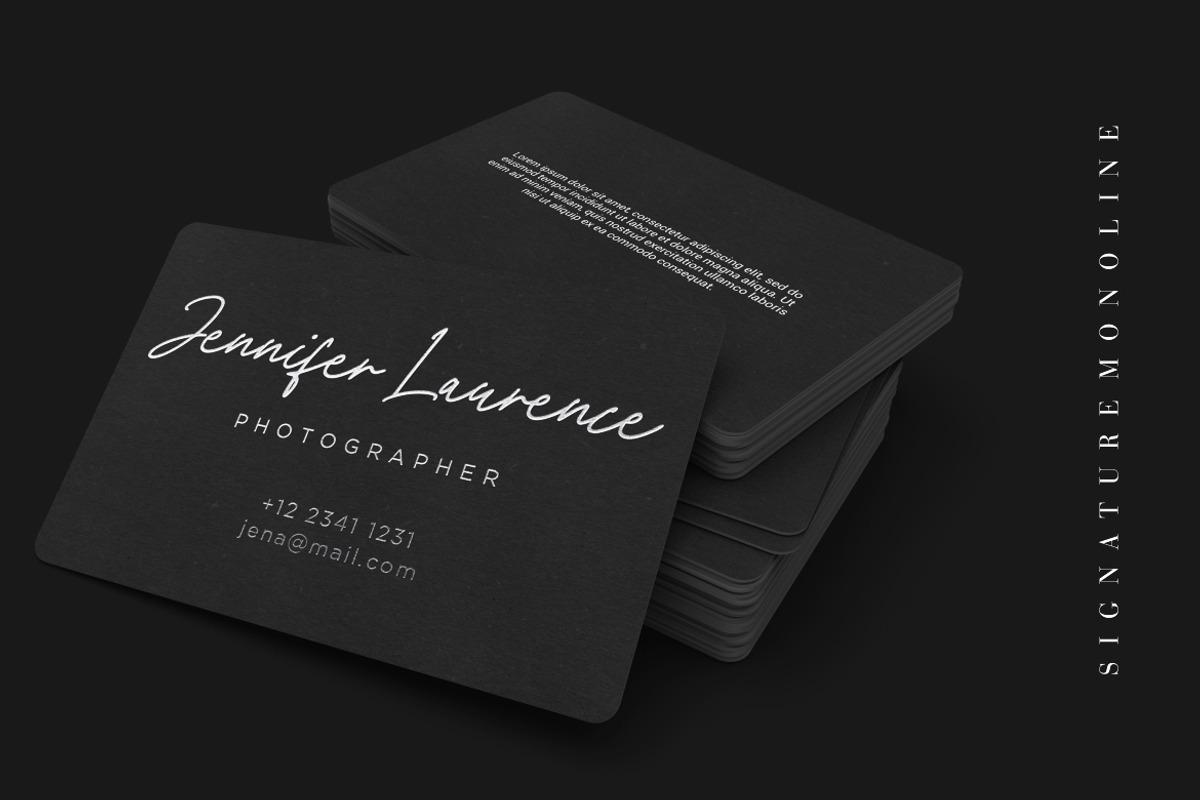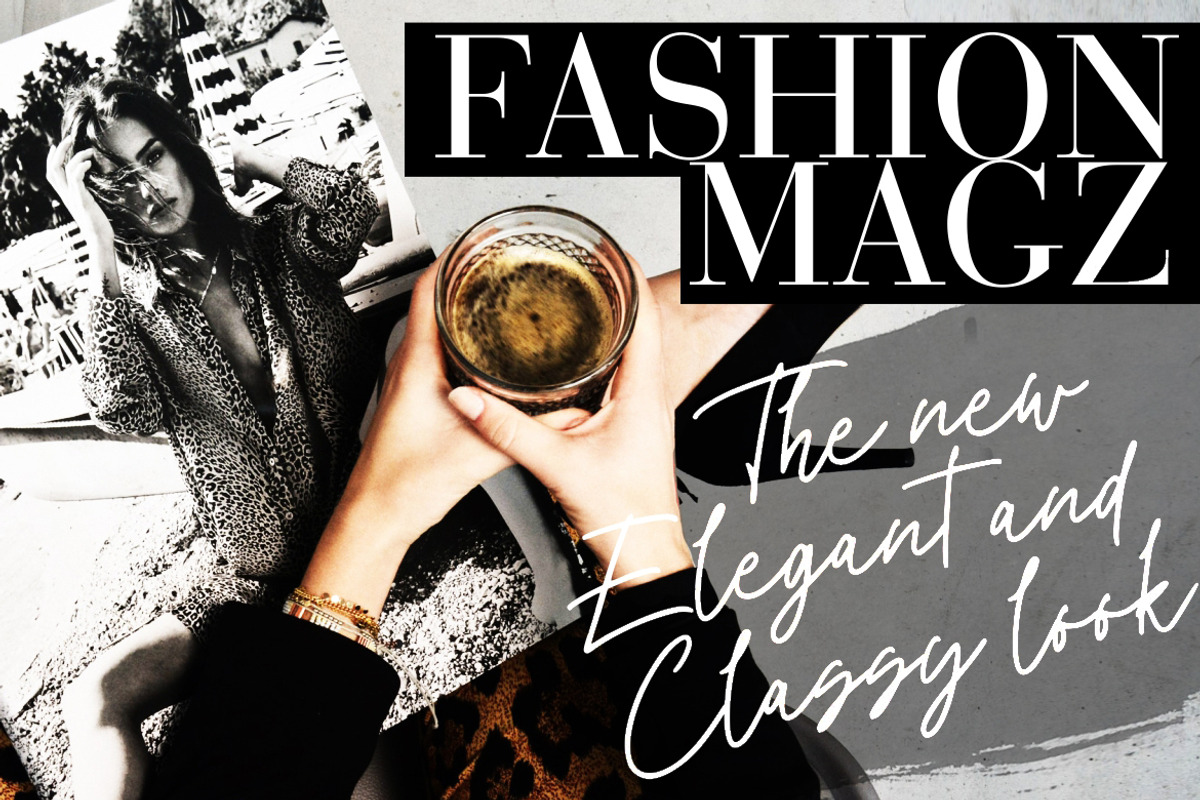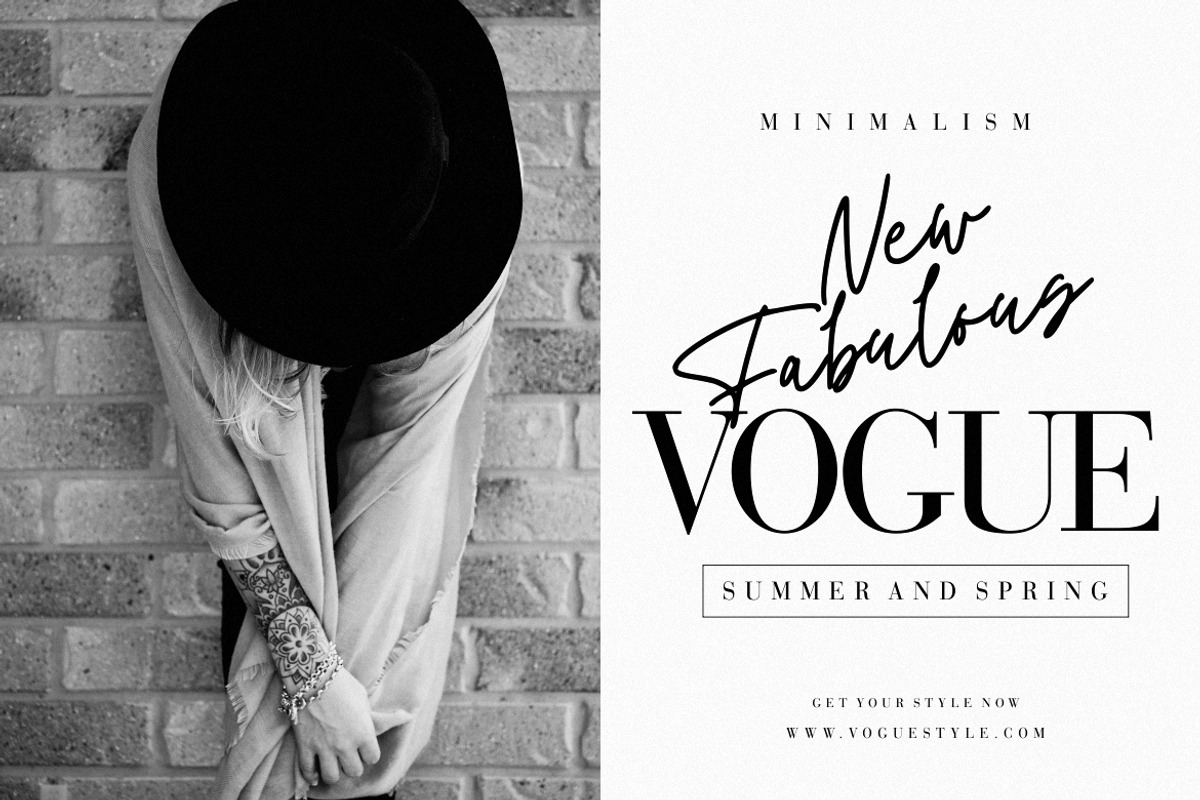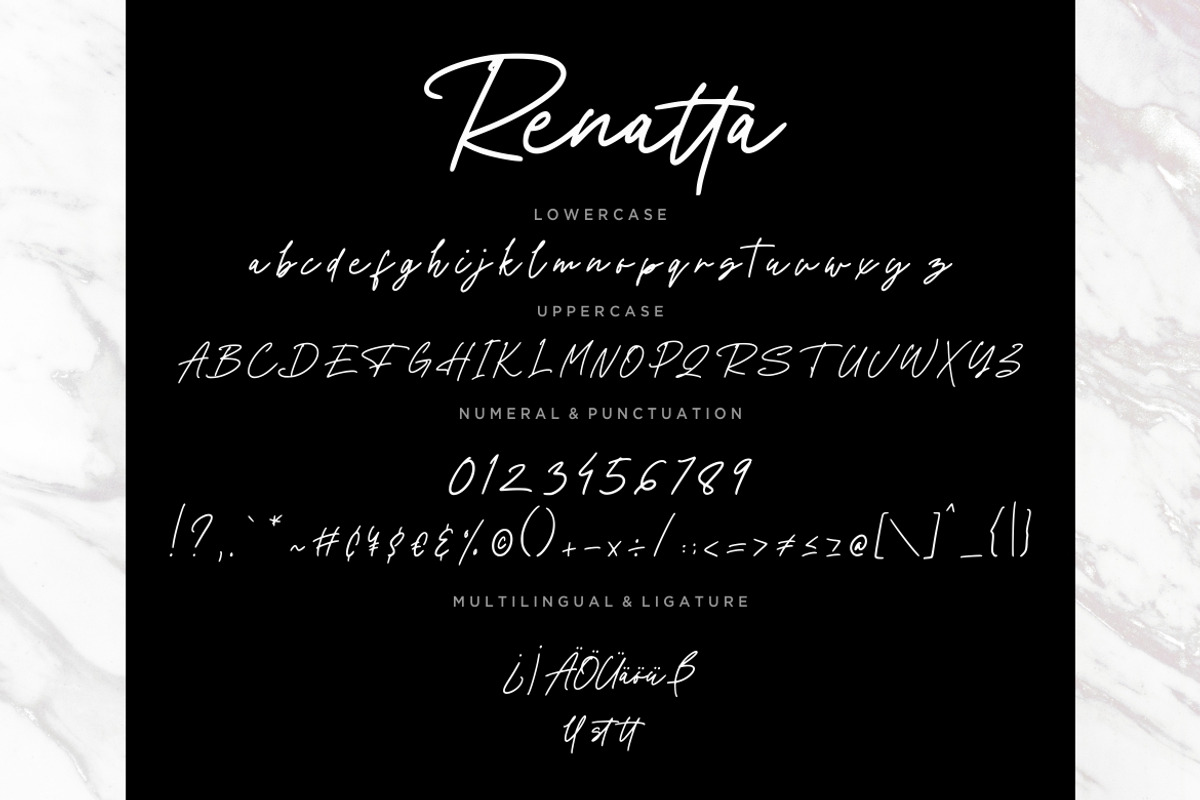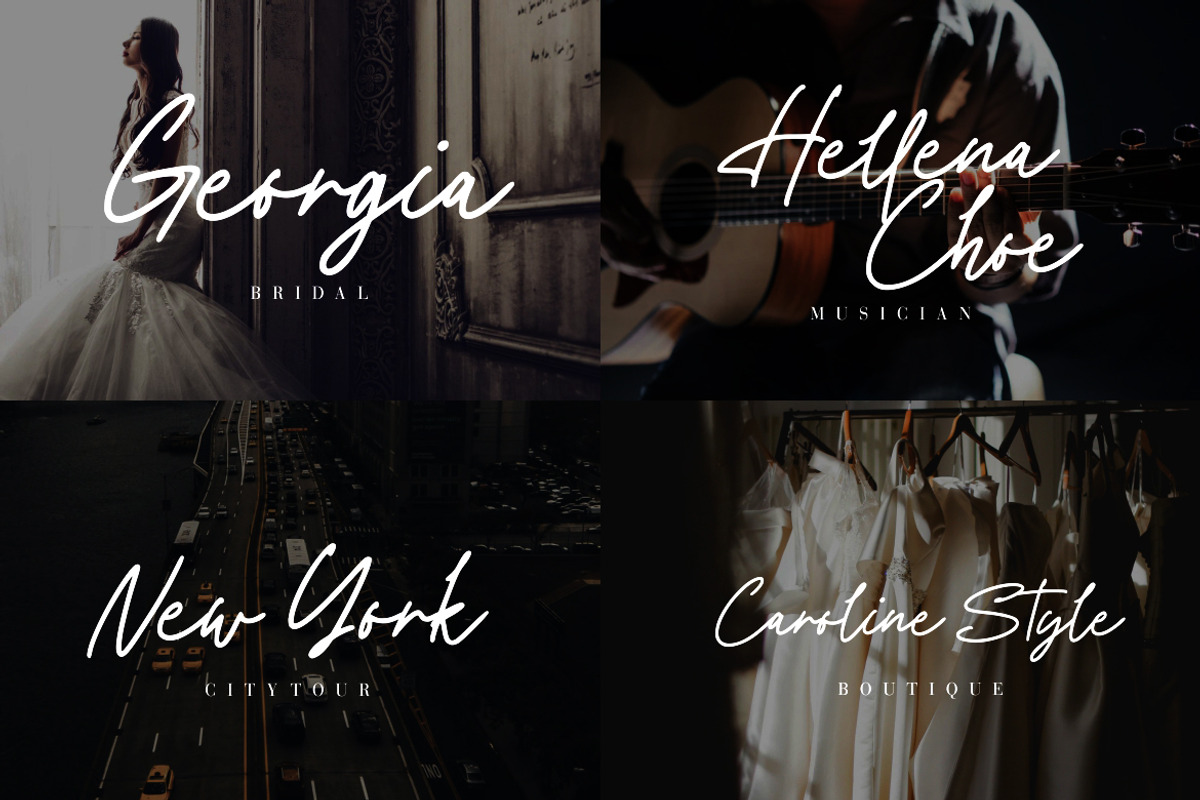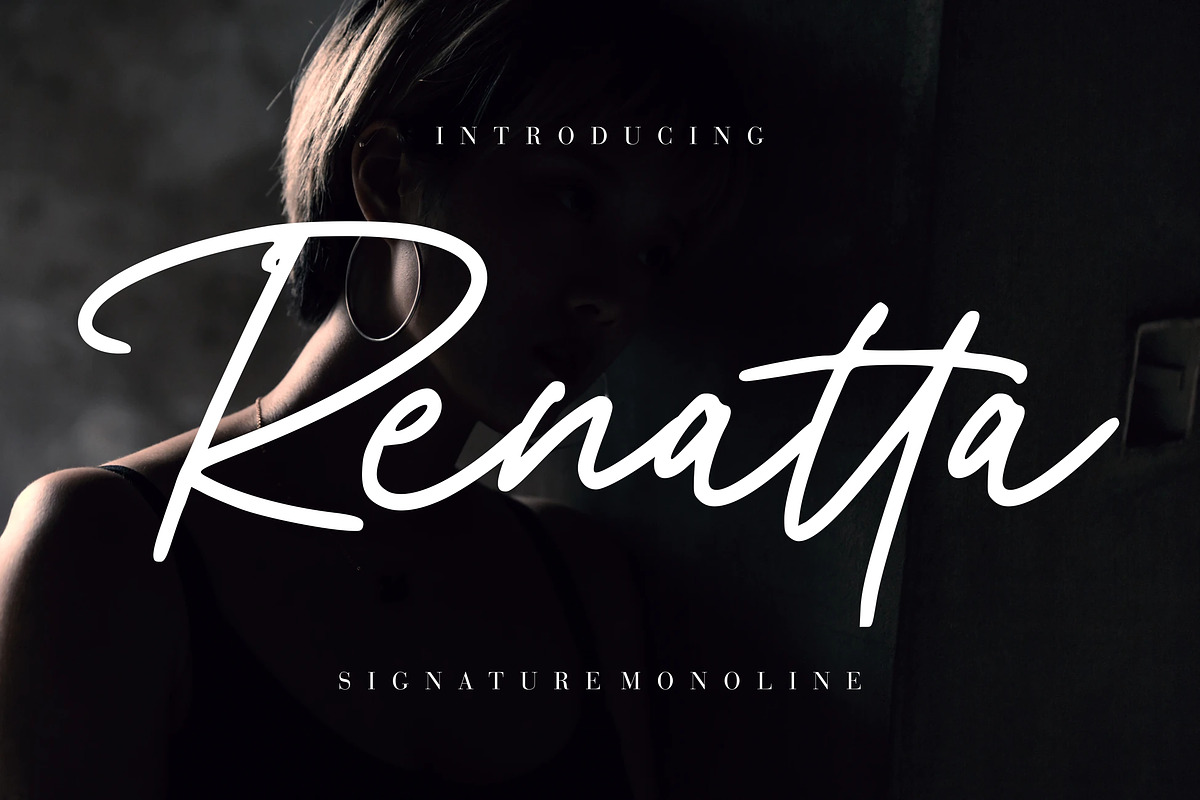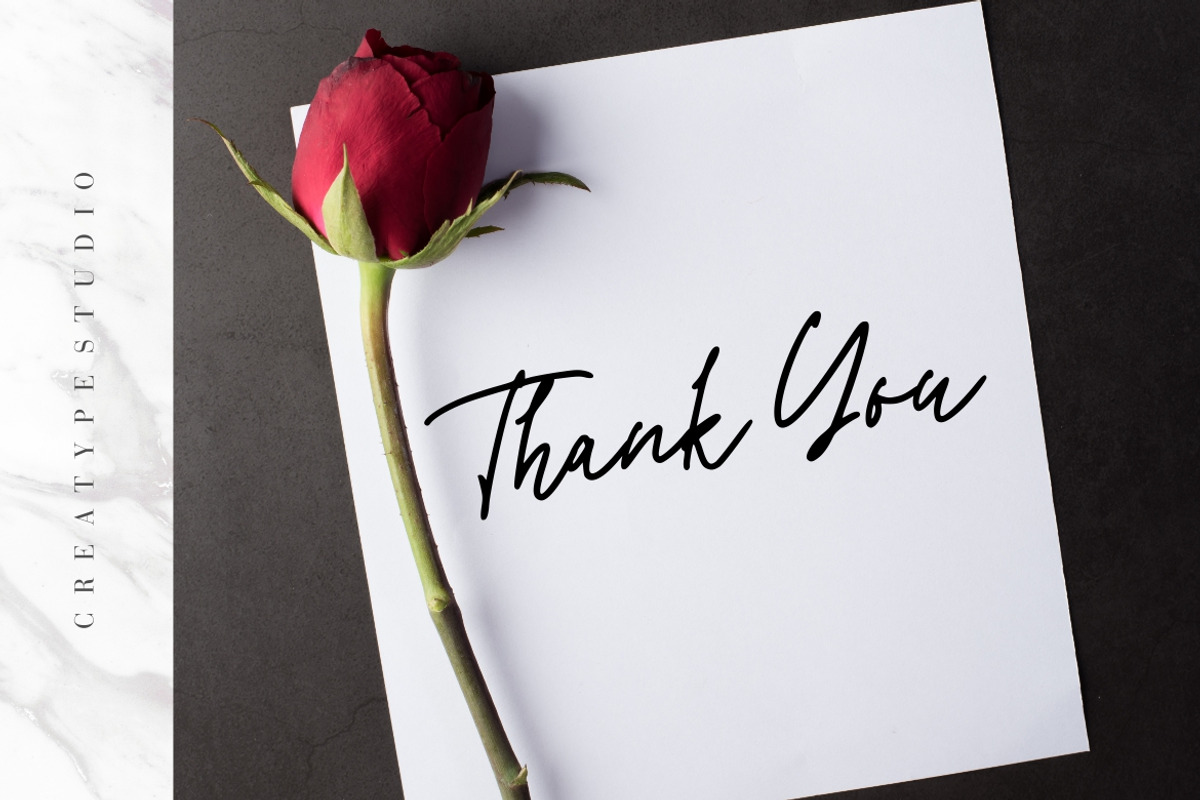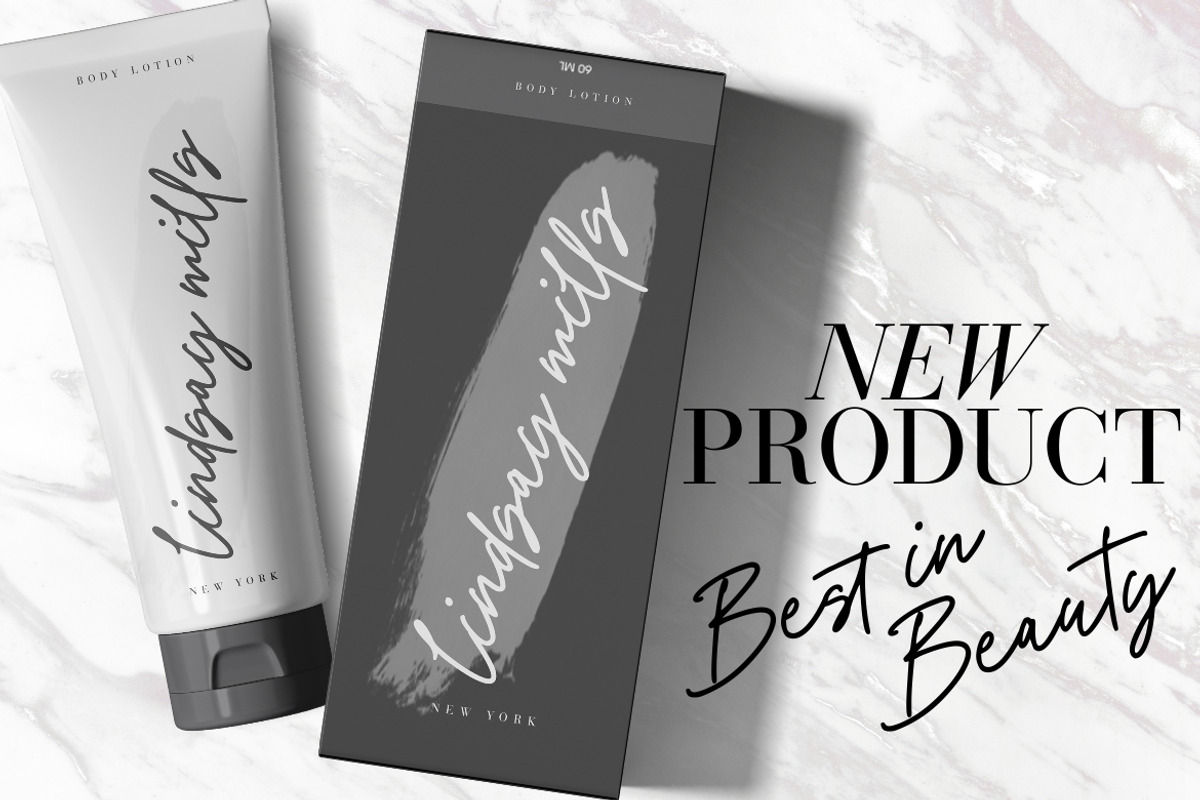
Renatta Business Font
Renatta is signature monoline font with sophisticated and stylish handwritten.
Renatta is perfect for branding projects, logo, wedding designs, social media posts, advertisements, product packaging, product designs, label, photography, watermark, invitation, stationery and any projects that need handwriting taste.
- Fonts include multilingual support for; ä ö ü Ä Ö Ü ß ¿ ¡